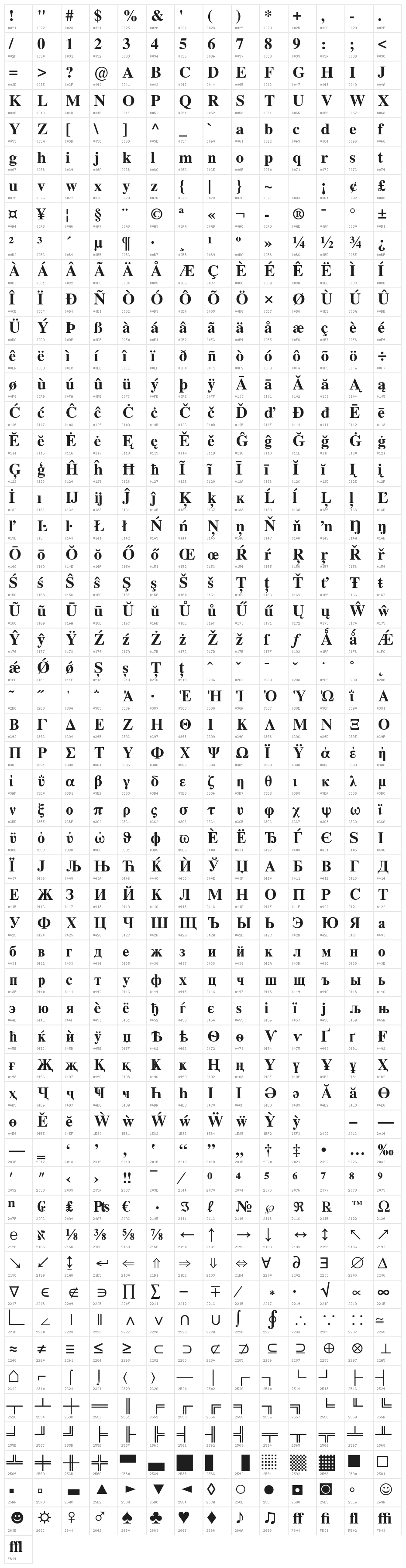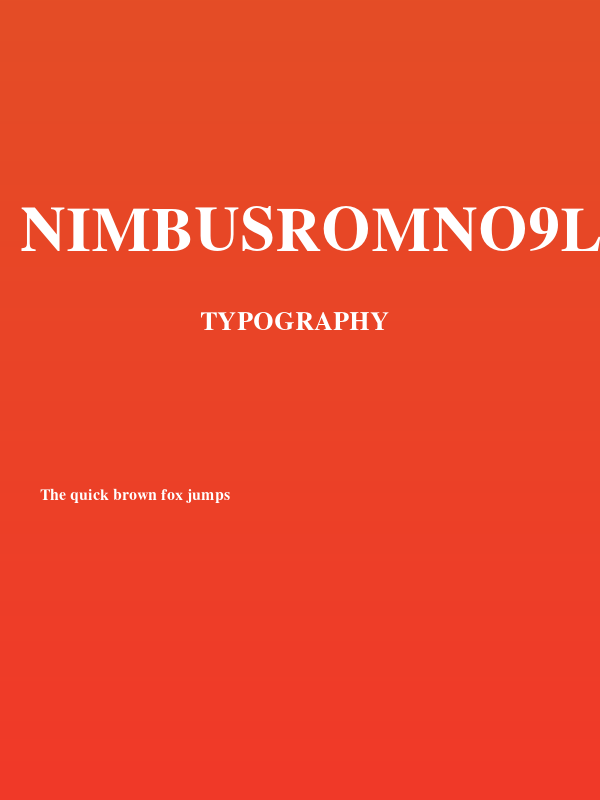
NimbusRomNo9L-Med Font
NimbusRomNo9L-Med Description
This font features a classic serif style with strong, bold strokes and high contrast between thick and thin lines. The serifs are pronounced, giving it a traditional and authoritative appearance. The uppercase letters are tall and commanding, while the lowercase letters maintain a consistent and readable flow. The numerals are clear and distinct, making them suitable for both text and display purposes. Special characters are elegantly integrated, maintaining the overall sophisticated aesthetic. This font is versatile, suitable for a range of applications from formal documents to elegant branding.
| Proposed Projects | Ideal for book typesetting, formal invitations, branding for luxury products, and editorial design. |